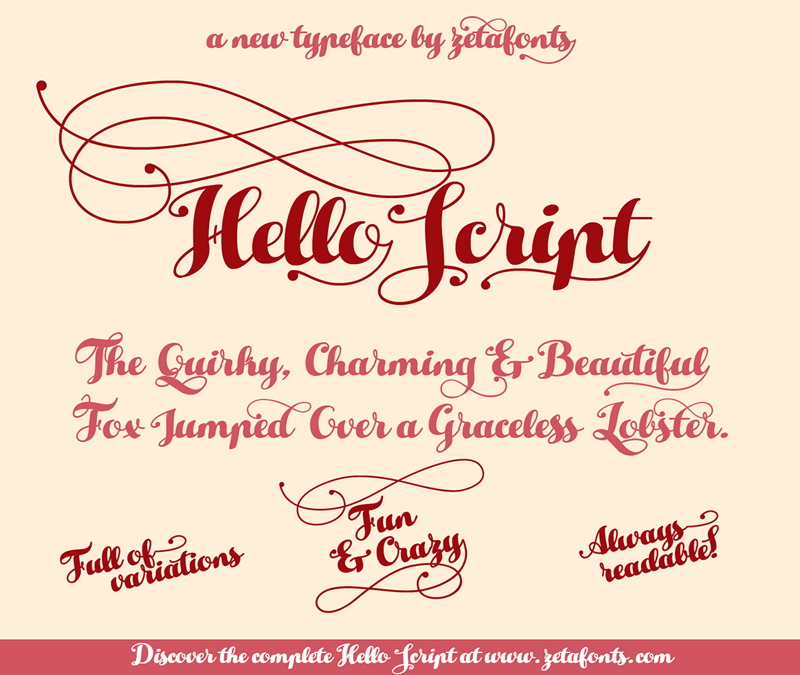
HELLO SCRIPT is a script typeface designed by Cosimo Lorenzo Pancini. It is a high contrast calligraphic script, featuring monoline swashes and terminals and strong, round body shapes designed with a parallel nib. Hello Script makes full use of Open Type substitutions to avoid letter clashes in uppercase and provide ligature, alternate and end characters. It covers over 40 languages that use the Latin alphabet, with full range of accents and diacritics. This trial font is TOTALLY FREE for NONCOMMERCIAL USES. For commercial uses you must get the full commercial typeface at: http://www.zetafonts.com/helloscript The commercial version features ten different swashes and three alternate weights to compose beautiful calligraphy in different sizes with a consistent line width. Take care: All advanced features (swashes, alternate endings & ligatures) are developed using open type technology, fully compatible with Adobe software and major design softwares and OS, but not supported by every software. Check before buying! Have a question?: info@zetafonts.com |